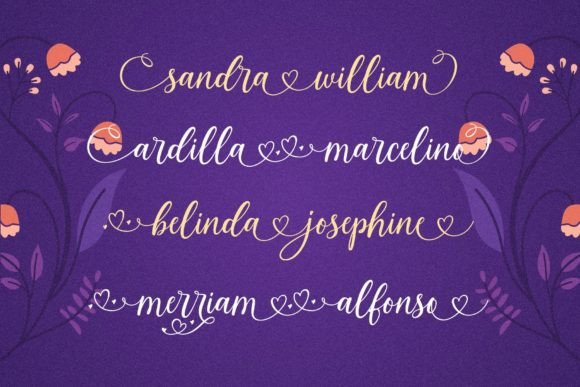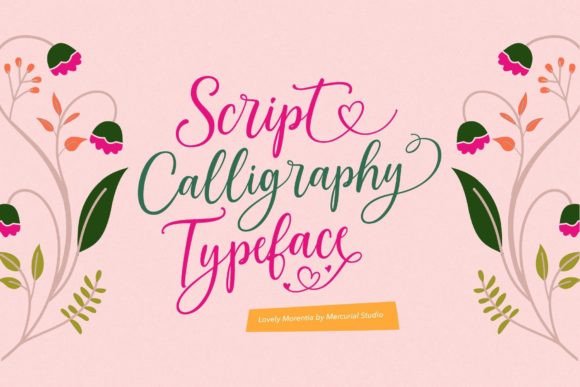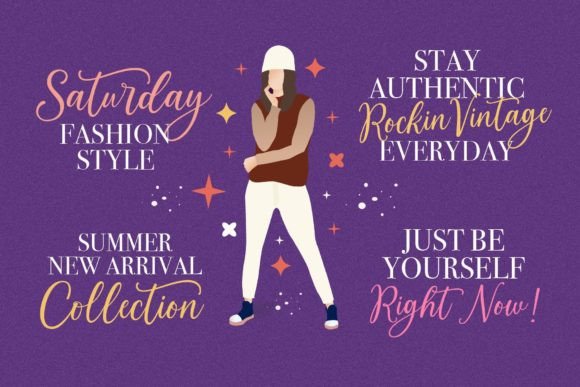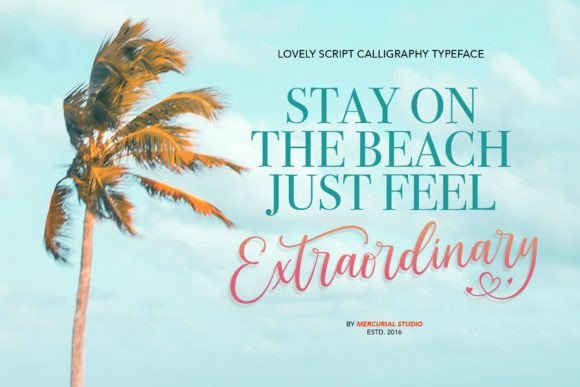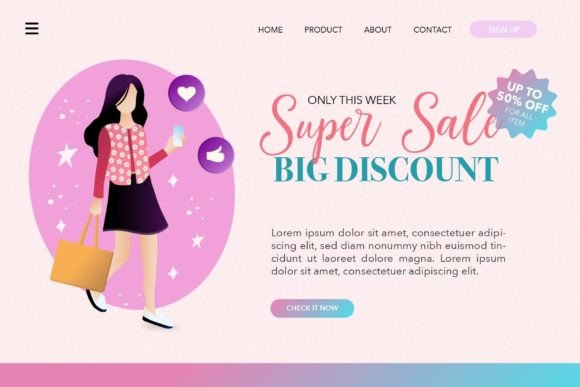
Introduction to Lovely Morentia Font
Lovely Morentia is a flowing script font, described by an elegant and romantic touch, perfect for your favorite projects.
Fall in love with its incredibly distinct and timeless style and use it to create spectacular designs This font is PUA encoded which means you can access all glyphs and swashes with ease.
Lovely Morentia Font offers exceptional quality and versatility, making it a valuable addition to your design toolkit. Whether you’re creating for personal projects or commercial use, Lovely Morentia Font delivers professional results.